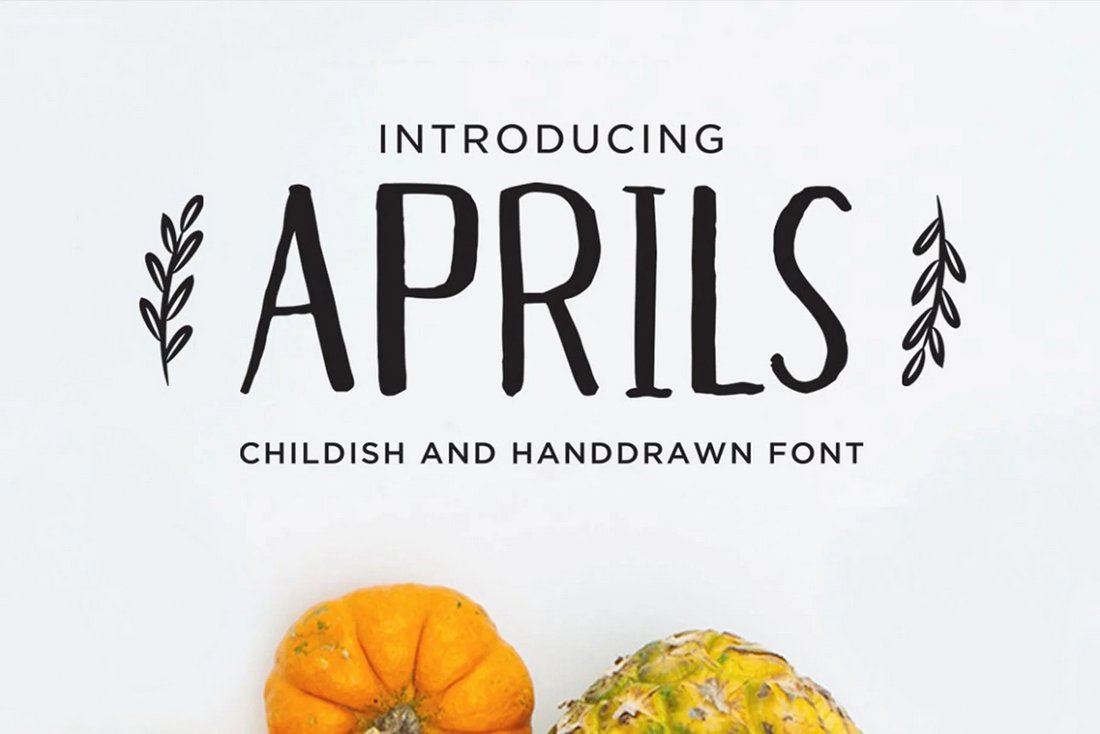
Best Fonts For Menu Board . Whether you're revamping a diner's menu or giving a fresh twist to a café's chalkboard specials, the ideal font can make all the. Used sparingly for the restaurant's name or for section headings, a striking display font is just the ticket for giving diners the right impression. This blog post will delve into three of the top picks for menu. Explore top choices for readability, style, and customer. Whether it's a swish script font or a punchy slab serif, it's a quick way to let people know what sort of establishment they're in. If you’re in the market for the best menu fonts, this feature is for you! Discover the best fonts for menus to enhance your restaurant's appeal.
Used sparingly for the restaurant's name or for section headings, a striking display font is just the ticket for giving diners the right impression. Whether you're revamping a diner's menu or giving a fresh twist to a café's chalkboard specials, the ideal font can make all the. If you’re in the market for the best menu fonts, this feature is for you! Whether it's a swish script font or a punchy slab serif, it's a quick way to let people know what sort of establishment they're in. Explore top choices for readability, style, and customer. This blog post will delve into three of the top picks for menu. Discover the best fonts for menus to enhance your restaurant's appeal.
Best Fonts For Menu Board Explore top choices for readability, style, and customer. Whether it's a swish script font or a punchy slab serif, it's a quick way to let people know what sort of establishment they're in. Explore top choices for readability, style, and customer. This blog post will delve into three of the top picks for menu. Used sparingly for the restaurant's name or for section headings, a striking display font is just the ticket for giving diners the right impression. Whether you're revamping a diner's menu or giving a fresh twist to a café's chalkboard specials, the ideal font can make all the. Discover the best fonts for menus to enhance your restaurant's appeal. If you’re in the market for the best menu fonts, this feature is for you!
How to Choose the Best Fonts for Your Restaurant Menu The Official Best Fonts For Menu Board This blog post will delve into three of the top picks for menu. Discover the best fonts for menus to enhance your restaurant's appeal. Whether you're revamping a diner's menu or giving a fresh twist to a café's chalkboard specials, the ideal font can make all the. Whether it's a swish script font or a punchy slab serif, it's a. Best Fonts For Menu Board.
How to Choose the Right Typography for Restaurant Menu Best Fonts For Menu Board Discover the best fonts for menus to enhance your restaurant's appeal. This blog post will delve into three of the top picks for menu. Whether it's a swish script font or a punchy slab serif, it's a quick way to let people know what sort of establishment they're in. Whether you're revamping a diner's menu or giving a fresh twist. Best Fonts For Menu Board.
36+ Best Restaurant Menu Fonts for DroolWorthy Designs Best Fonts For Menu Board Used sparingly for the restaurant's name or for section headings, a striking display font is just the ticket for giving diners the right impression. Whether you're revamping a diner's menu or giving a fresh twist to a café's chalkboard specials, the ideal font can make all the. Explore top choices for readability, style, and customer. Discover the best fonts for. Best Fonts For Menu Board.
36+ Best Restaurant Menu Fonts for DroolWorthy Designs Best Fonts For Menu Board If you’re in the market for the best menu fonts, this feature is for you! This blog post will delve into three of the top picks for menu. Discover the best fonts for menus to enhance your restaurant's appeal. Explore top choices for readability, style, and customer. Whether it's a swish script font or a punchy slab serif, it's a. Best Fonts For Menu Board.
Restaurant Menu Fonts Best Fonts For Menu Board Whether you're revamping a diner's menu or giving a fresh twist to a café's chalkboard specials, the ideal font can make all the. Whether it's a swish script font or a punchy slab serif, it's a quick way to let people know what sort of establishment they're in. Used sparingly for the restaurant's name or for section headings, a striking. Best Fonts For Menu Board.
36+ Best Restaurant Menu Fonts for DroolWorthy Designs Best Fonts For Menu Board Used sparingly for the restaurant's name or for section headings, a striking display font is just the ticket for giving diners the right impression. Whether you're revamping a diner's menu or giving a fresh twist to a café's chalkboard specials, the ideal font can make all the. Whether it's a swish script font or a punchy slab serif, it's a. Best Fonts For Menu Board.
25+ Best Fonts for Menus (Restaurants, Cafes + Bars) Design Hawks Best Fonts For Menu Board If you’re in the market for the best menu fonts, this feature is for you! Whether it's a swish script font or a punchy slab serif, it's a quick way to let people know what sort of establishment they're in. Discover the best fonts for menus to enhance your restaurant's appeal. This blog post will delve into three of the. Best Fonts For Menu Board.
Menu Typography The 19 Best Fonts for Menus Best Fonts For Menu Board This blog post will delve into three of the top picks for menu. Whether it's a swish script font or a punchy slab serif, it's a quick way to let people know what sort of establishment they're in. Whether you're revamping a diner's menu or giving a fresh twist to a café's chalkboard specials, the ideal font can make all. Best Fonts For Menu Board.
25+ Best Fonts for Menus (Restaurants, Cafes + Bars) Design Hawks Best Fonts For Menu Board This blog post will delve into three of the top picks for menu. Used sparingly for the restaurant's name or for section headings, a striking display font is just the ticket for giving diners the right impression. Explore top choices for readability, style, and customer. Discover the best fonts for menus to enhance your restaurant's appeal. Whether it's a swish. Best Fonts For Menu Board.